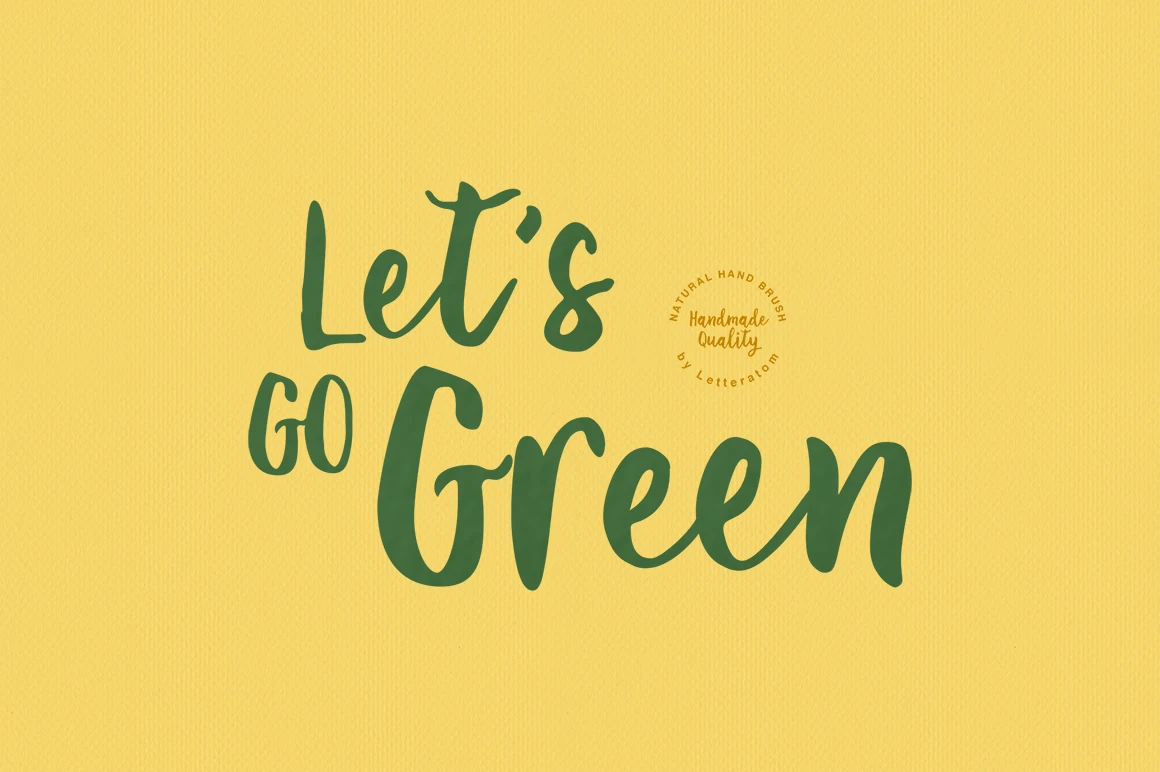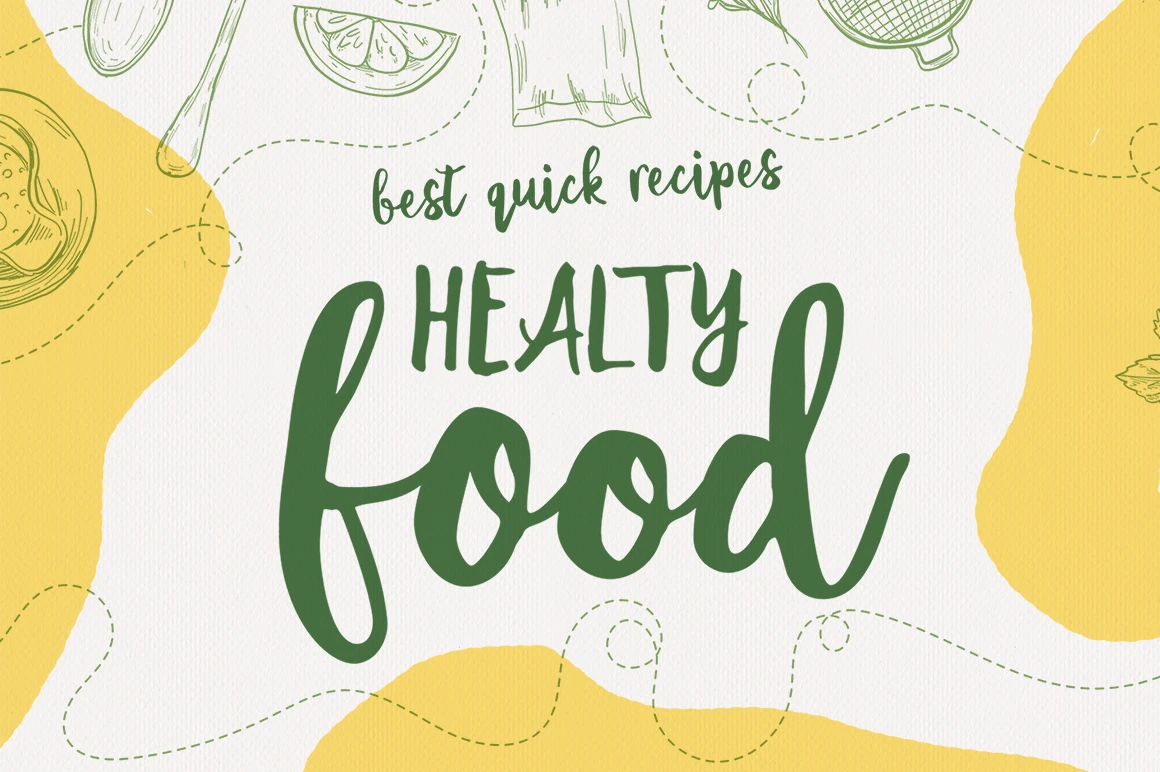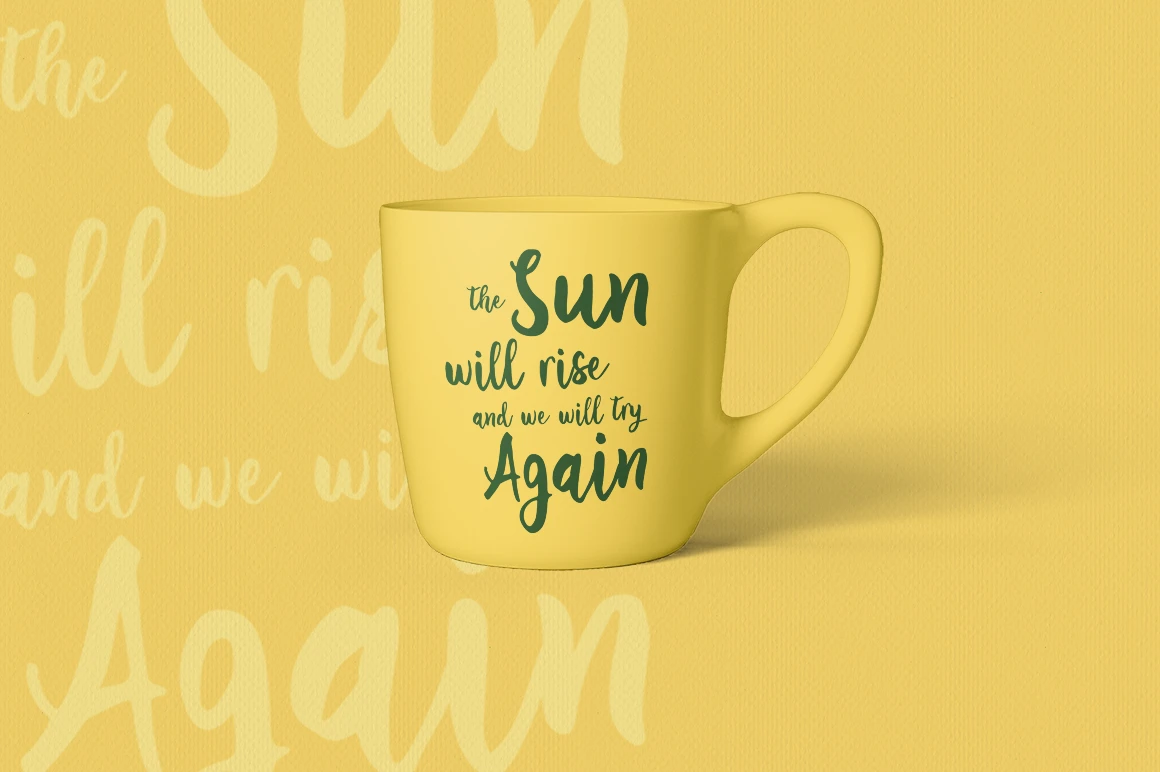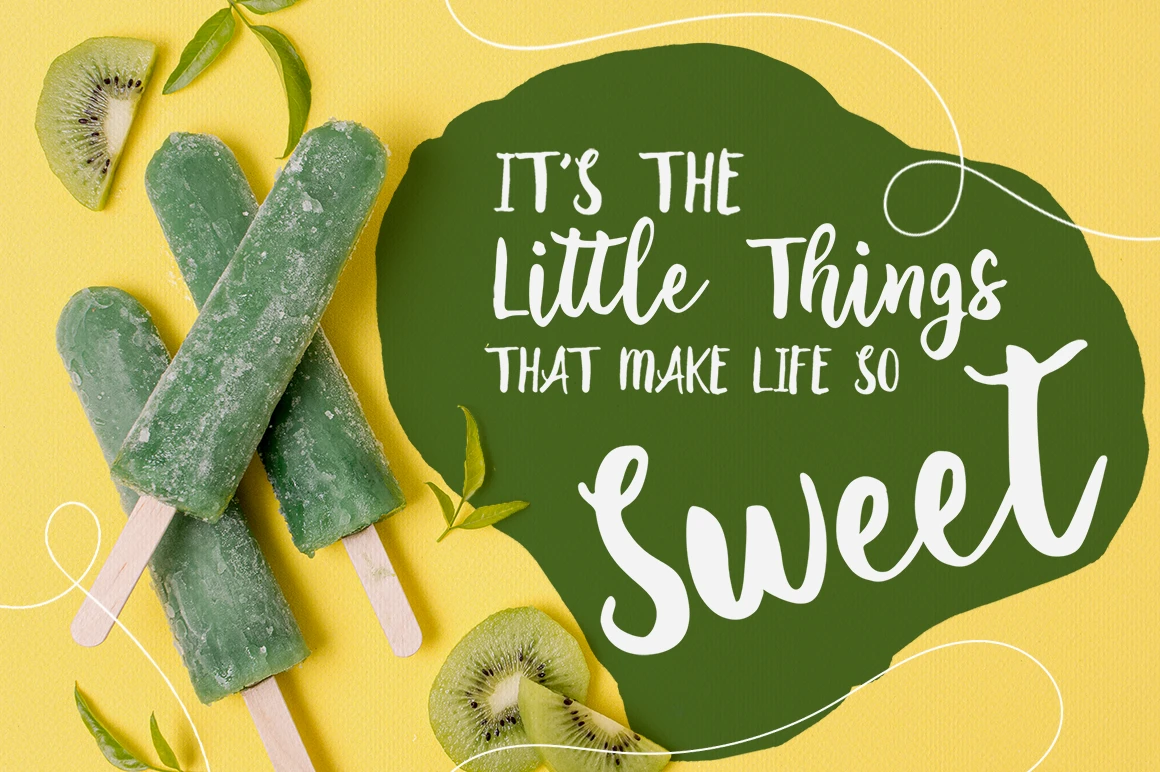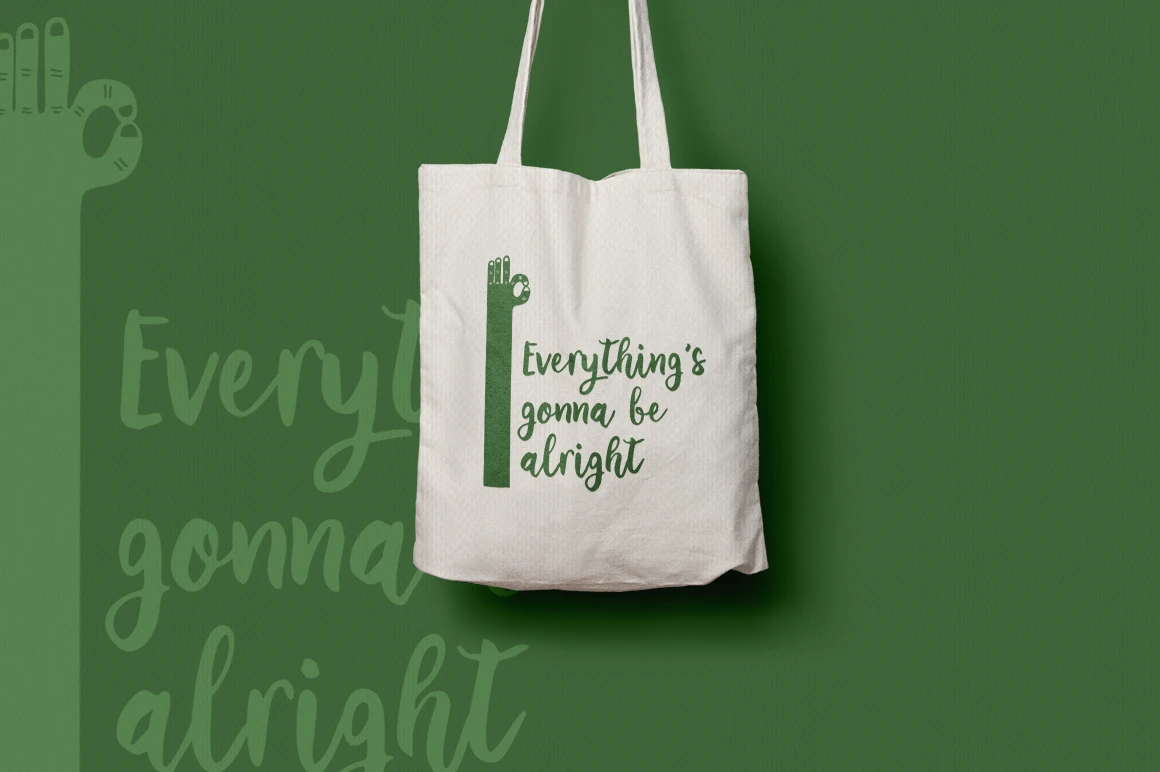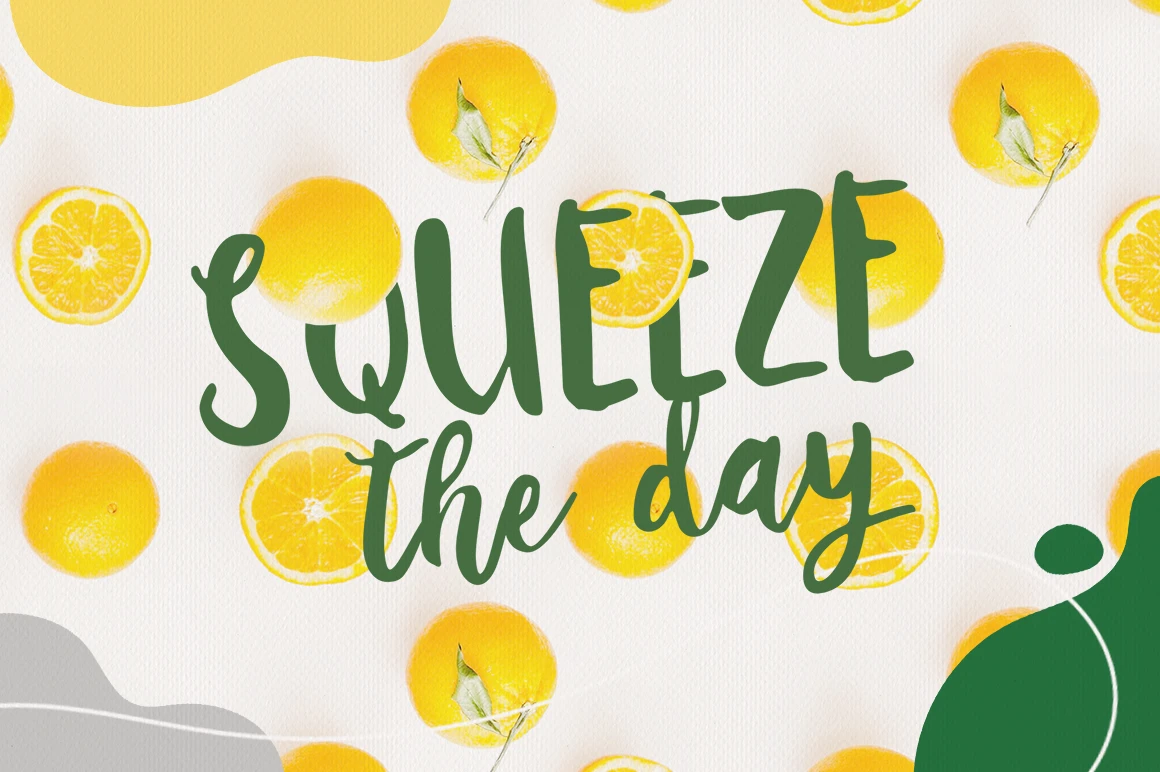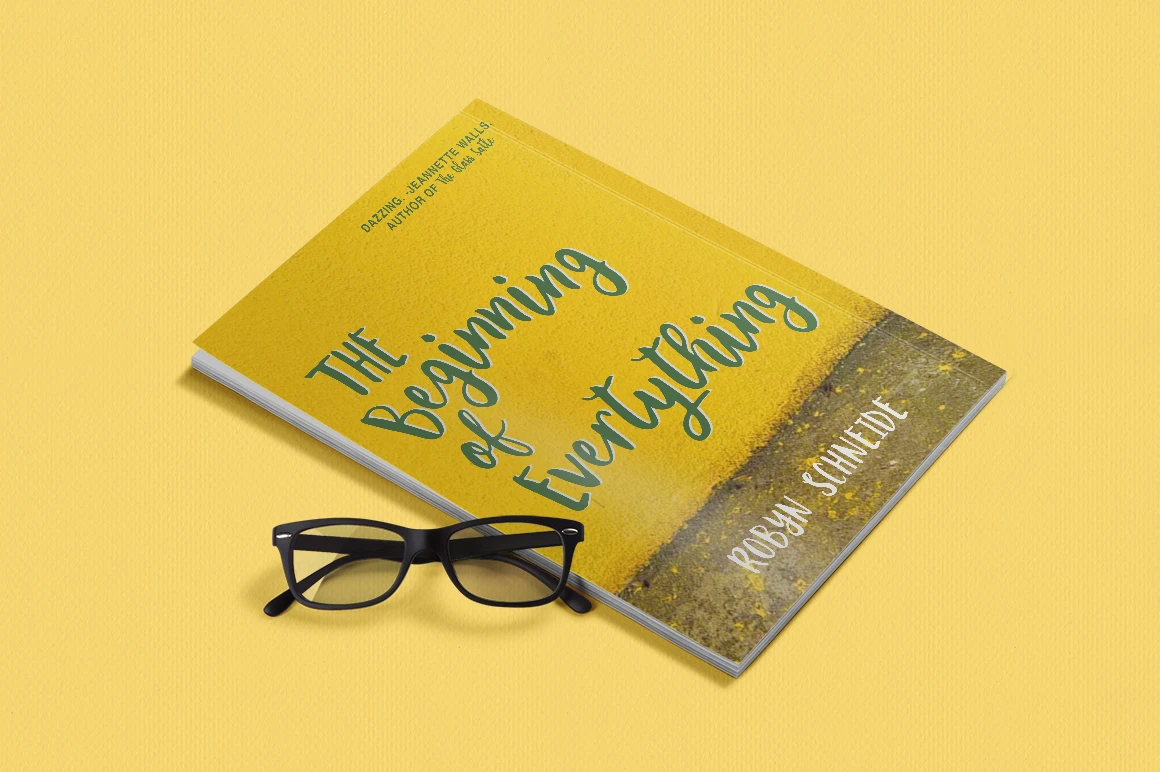
Let’s Go Green is a natural, organic, casual, uneven touch font! Made naturally using brush strokes with ink on paper, giving a very unique and distinctive impression. It is ideal for logos, quotes, print media, product packaging, merchandise, advertising, social media and your design projects.
Let’s Go Green comes as a single font that is packed with OpenType Features. It contains the complete set of lowercase & uppercase letters, various punctuation marks, numbers, and multilingual and ligature support.